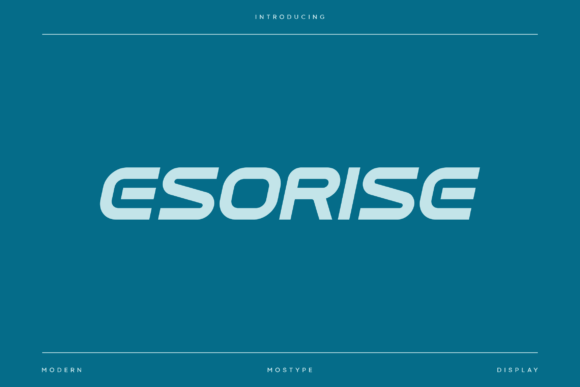
Introducing Esorise Font: The Ultimate Modern Futuristic Typeface
In the world of typography, fonts play a crucial role in conveying the tone and aesthetic of a design. When it comes to creating a futuristic and sporty look, the right font can make all the difference. This is where Esorise Font comes in – a modern, futuristic typeface that is designed to elevate your designs to the next level. In this article, we’ll dive into the features and benefits of Esorise Font, and explore how it can be used to create stunning designs that exude a sense of innovation and style.
What is Esorise Font?
Esorise Font is a modern futuristic font that boasts a unique uppercase design, complete with all-caps that are sure to make your designs stand out. With its sleek and clean appearance, this font is perfect for creating hi-tech and sports themes that require a sense of speed and agility. Whether you’re designing a logo, branding materials, or a magazine, Esorise Font is the perfect choice for adding a touch of futurism to your work.
Key Features of Esorise Font
- Unique Uppercase Design: Esorise Font features a distinctive uppercase design that sets it apart from other fonts.
- All-Caps: The font comes with all-caps, making it perfect for creating bold and eye-catching designs.
- Modern and Futuristic: Esorise Font has a sleek and modern aesthetic that is perfect for creating futuristic and sporty designs.
- Elegant and Clean: The font has an elegant and clean appearance that makes it suitable for a wide range of design applications.
- Versatile: Esorise Font can be used for any purpose, from logo design and branding to magazine and headline design.
Use Cases for Esorise Font
Esorise Font is a versatile typeface that can be used in a variety of design applications. Here are some examples of how you can use this font to create stunning designs:
- Hi-Tech and Sports Themes: Esorise Font is perfect for creating hi-tech and sports themes that require a sense of speed and agility.
- Science-Fiction Movie Posters: The font’s futuristic aesthetic makes it ideal for creating science-fiction movie posters that require a sense of otherworldliness.
- Logo Design: Esorise Font’s elegant and clean appearance makes it suitable for logo design, where a simple yet distinctive design can make all the difference.
- Branding: The font can be used to create bold and eye-catching branding materials that exude a sense of innovation and style.
- Magazine and Headline Design: Esorise Font can be used to create stunning magazine and headline designs that require a sense of sophistication and elegance.
Benefits of Using Esorise Font
There are several benefits to using Esorise Font in your designs. Here are some of the advantages of choosing this font:
- Unique and Distinctive: Esorise Font has a unique and distinctive design that sets it apart from other fonts.
- Versatile: The font can be used for a wide range of design applications, from logo design to magazine and headline design.
- Easy to Read: Esorise Font has a clean and elegant appearance that makes it easy to read, even at small sizes.
- Scalable: The font is highly scalable, making it suitable for use in a variety of design applications, from business cards to billboards.
In conclusion, Esorise Font is a modern futuristic typeface that is designed to elevate your designs to the next level. With its unique uppercase design, all-caps, and sleek aesthetic, this font is perfect for creating hi-tech and sports themes, science-fiction movie posters, and more. Whether you’re a designer, entrepreneur, or marketer, Esorise Font is a versatile typeface that can help you create stunning designs that exude a sense of innovation and style.